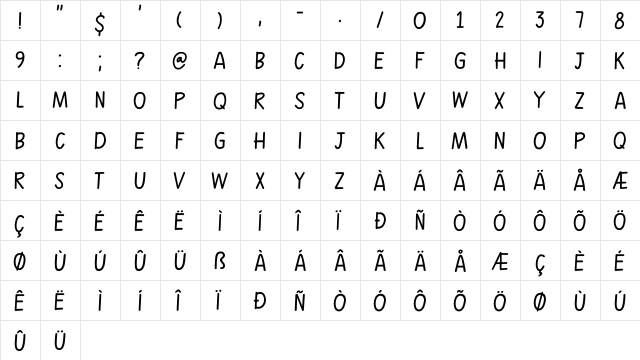
Gumboots DEMO Regular
Design Context for Gumboots DEMO Typeface
Gumboots DEMO is a composed and adaptable typeface that performs quietly and consistently across a wide range of design contexts.
Pro Tip: Use Gumboots DEMO in both headline and body roles to test its range before committing to a single application.